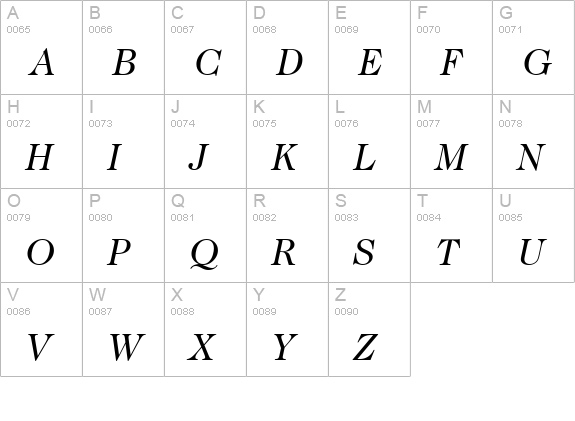
Caslon-BookItalic font is a timeless and elegant typeface that exudes sophistication and charm. Its delicate italic style adds a touch of class to any project, making it perfect for use in invitations, wedding stationery, and editorial design. The flowing curves and graceful letterforms of Caslon-BookItalic font give it a classic and refined appearance that is sure to impress. What's even better is that Caslon-BookItalic font is available for free download at FontsMarket.com. This means you can easily access this beautiful typeface and use it for your personal and commercial projects without any cost. Don't miss out on the opportunity to enhance your designs with the timeless appeal of Caslon-BookItalic font. Download it now and add a touch of elegance to your next creative endeavor.